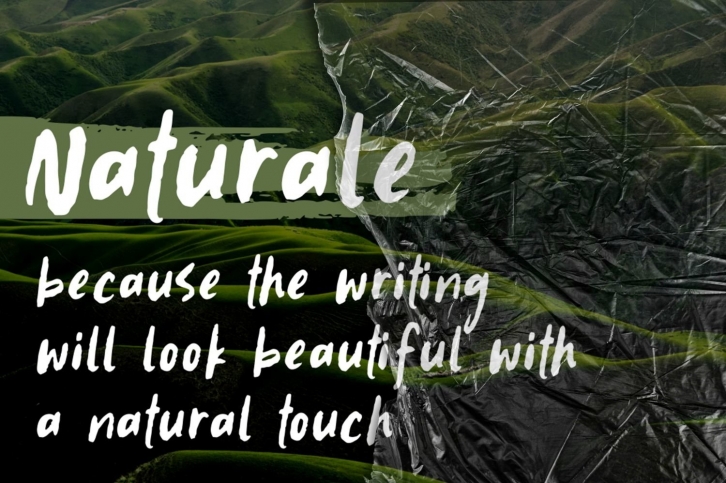
Naturale is a gorgeous font that was realeased on August 3, 2020. The font can be used in many style contexts and design environments. Perfect for invitations, magazines, websites, logos, and more! It was designed by Good Java Studio and the file size is 20.90 MB. Thanks for checking out this font!